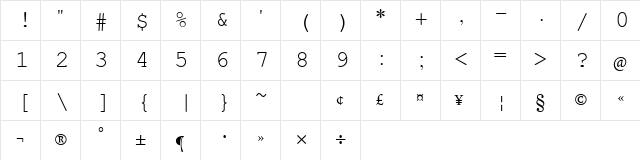
KaputaUnicode Regular
| Foundry | Thusitha Randunuge - eFusion |
| Designer | Thusitha Randunuge |
Design Context for KaputaUnicode Typeface
KaputaUnicode brings the precise, column-aligned rhythm of monospaced typography to designs that value technical clarity and systematic order.
Well-suited to data-driven dashboards, coding tutorials, and any design that wants to reference the world of programming.